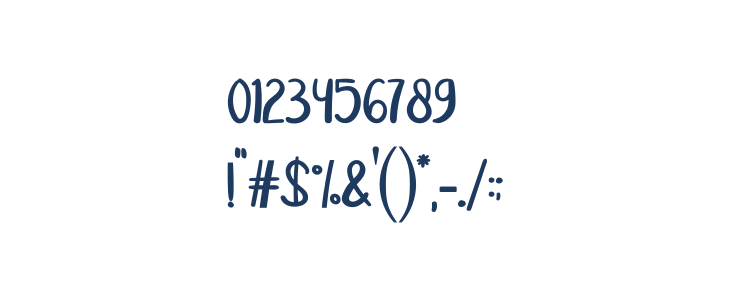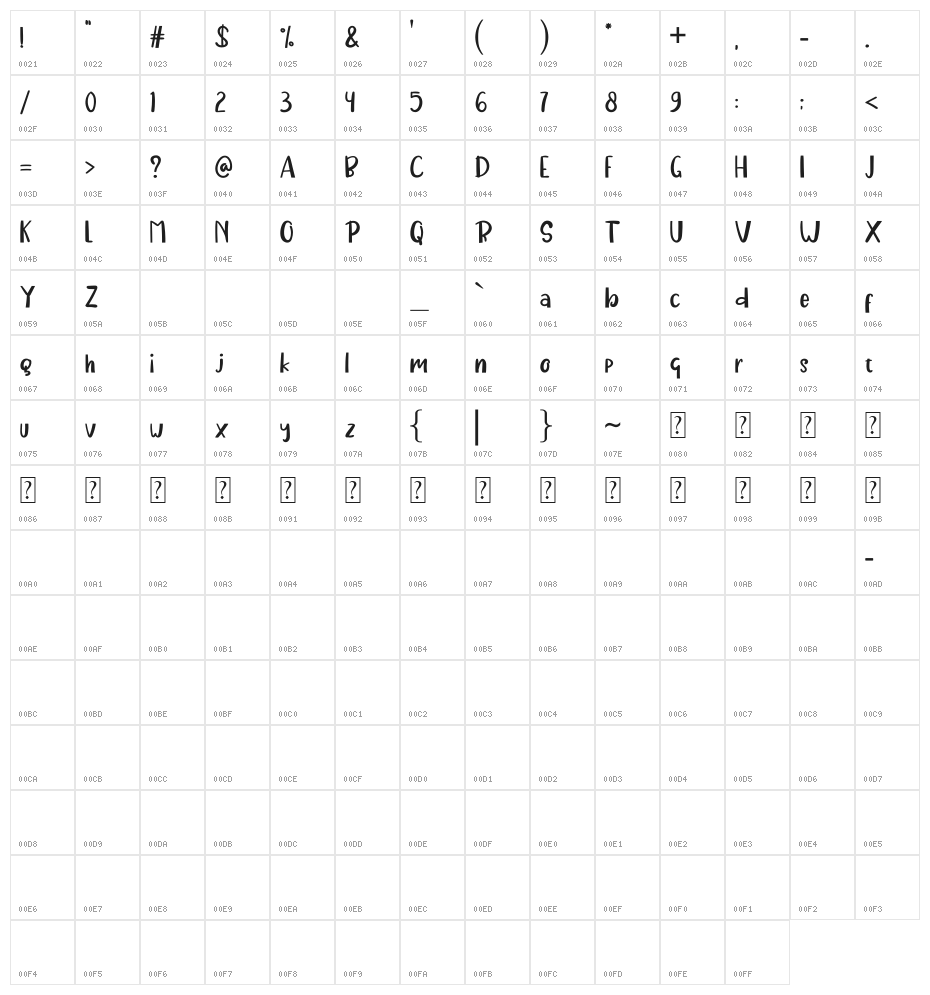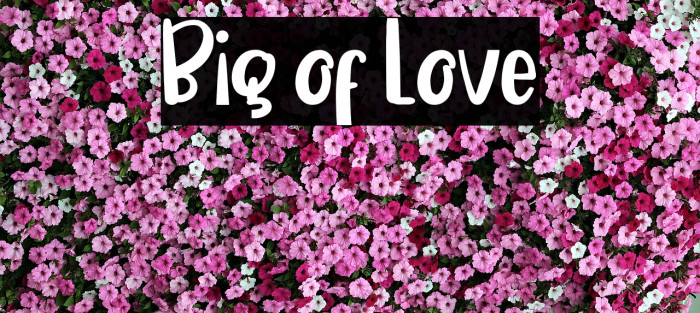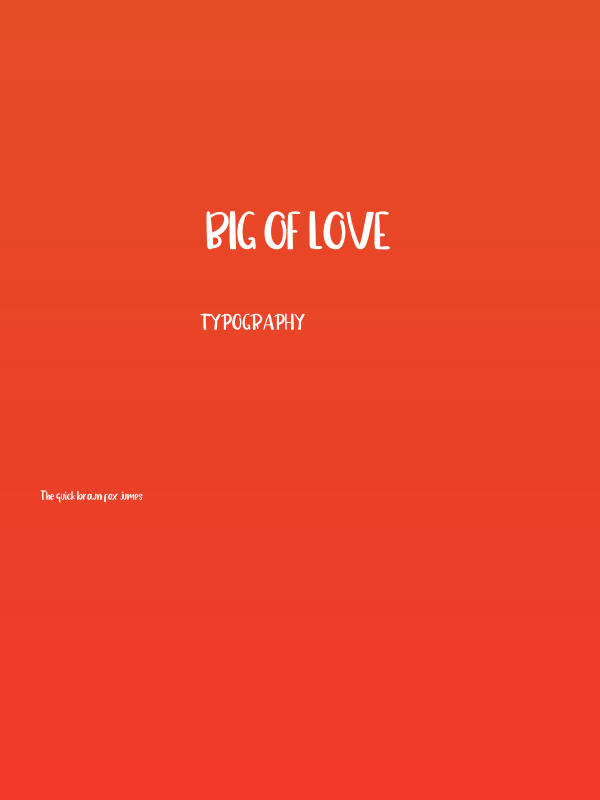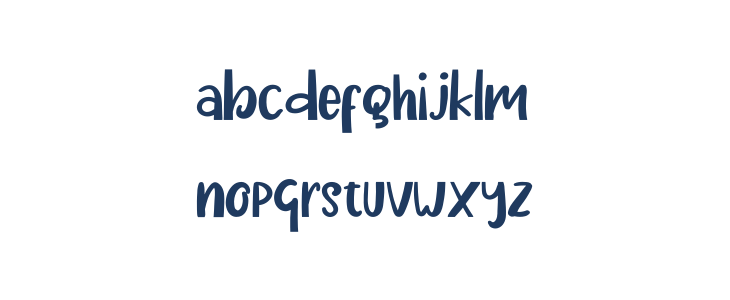
Big of Love Font
Big of Love Description
This playful and whimsical font features a hand-drawn, casual style that exudes a sense of fun and creativity. The letters are bold and slightly irregular, giving them a unique charm. The uppercase characters are tall and slightly narrow, while the lowercase letters maintain a consistent flow with rounded edges. Numbers and special characters follow the same playful aesthetic, making this font versatile for various creative projects. The overall appearance is friendly and approachable, ideal for designs that aim to convey warmth and personality.
| Proposed Projects | Perfect for greeting cards, children's books, playful branding, and social media graphics. |